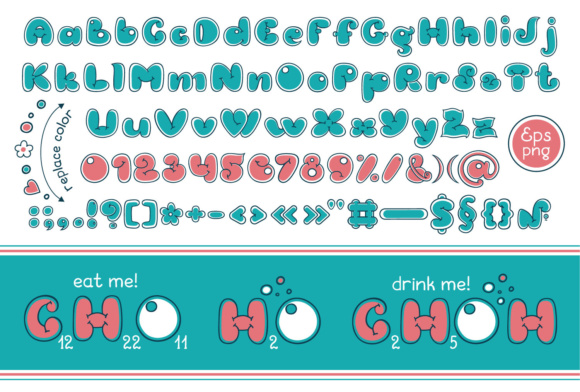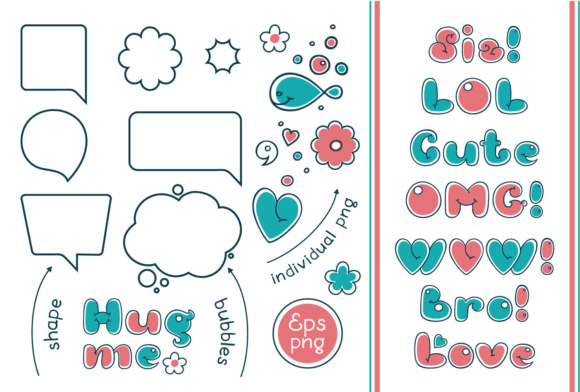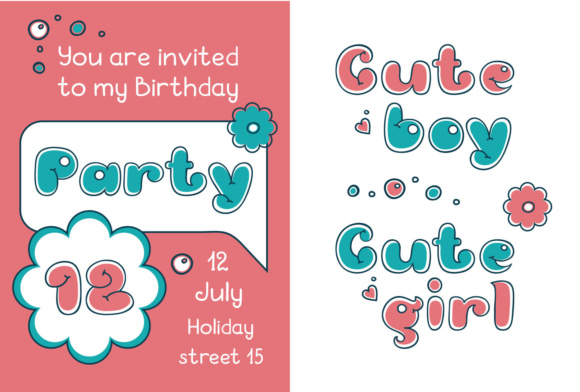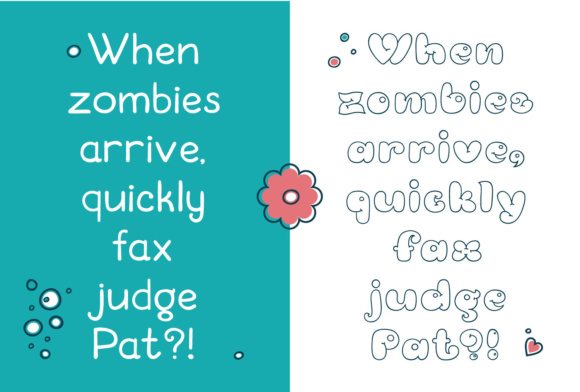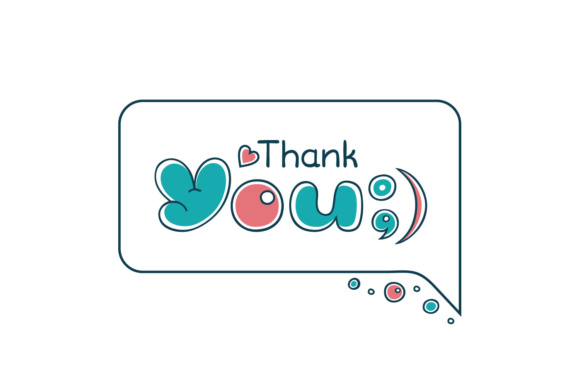
Bubble Double Duo Font
About Bubble Double Duo Font
Bubble Double is a cartoonish font duo. It comes in a regular and light version which both have a fun and comic feel. It’s perfect for kids’ illustrations, websites, posters, comics, banners, and much more!